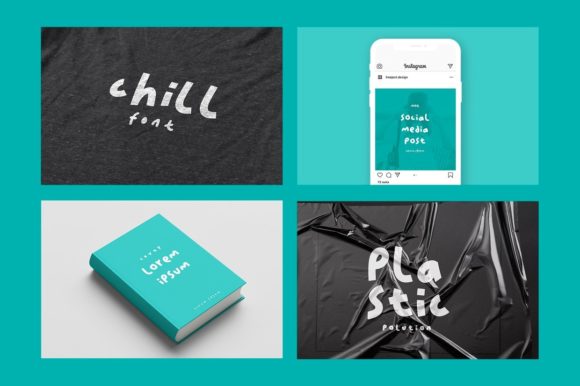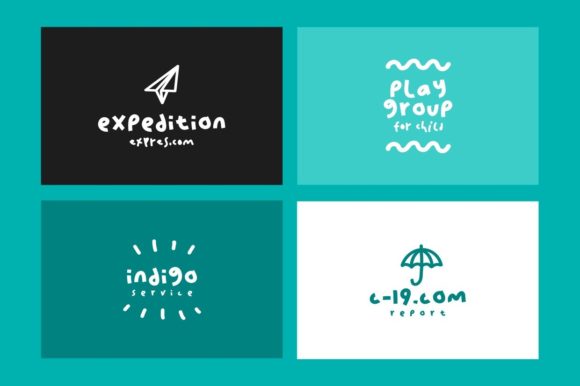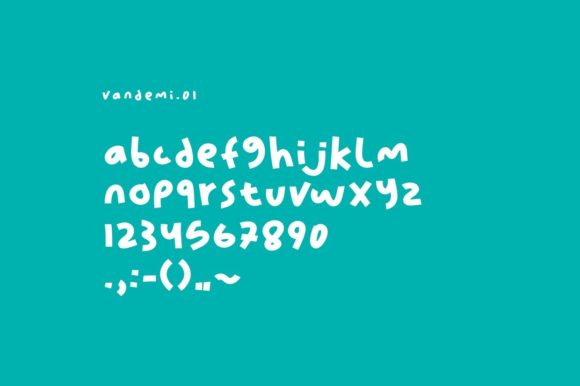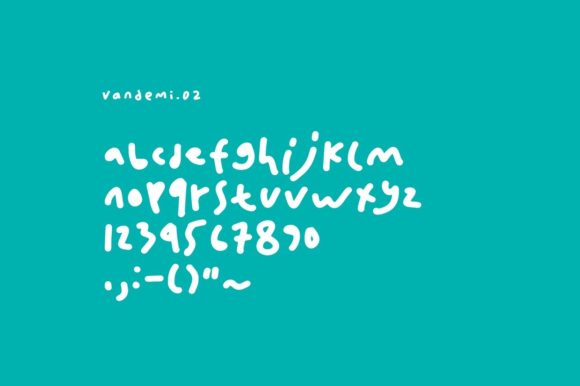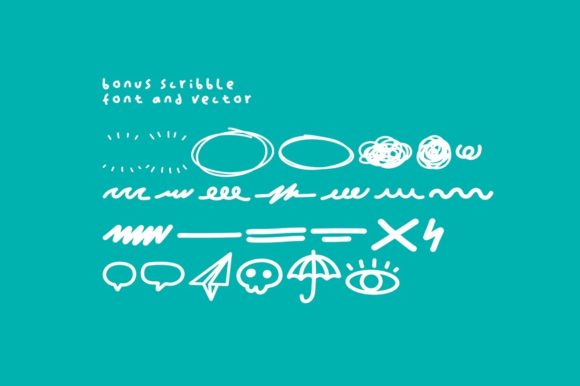
Vandemi Font
About Vandemi Font
Vandemi is an adorable duo font (handwritten and dingbats) perfect for creating playful and friendly designs! Use it to create wonderful storybook covers, posters, social media posts, and more.